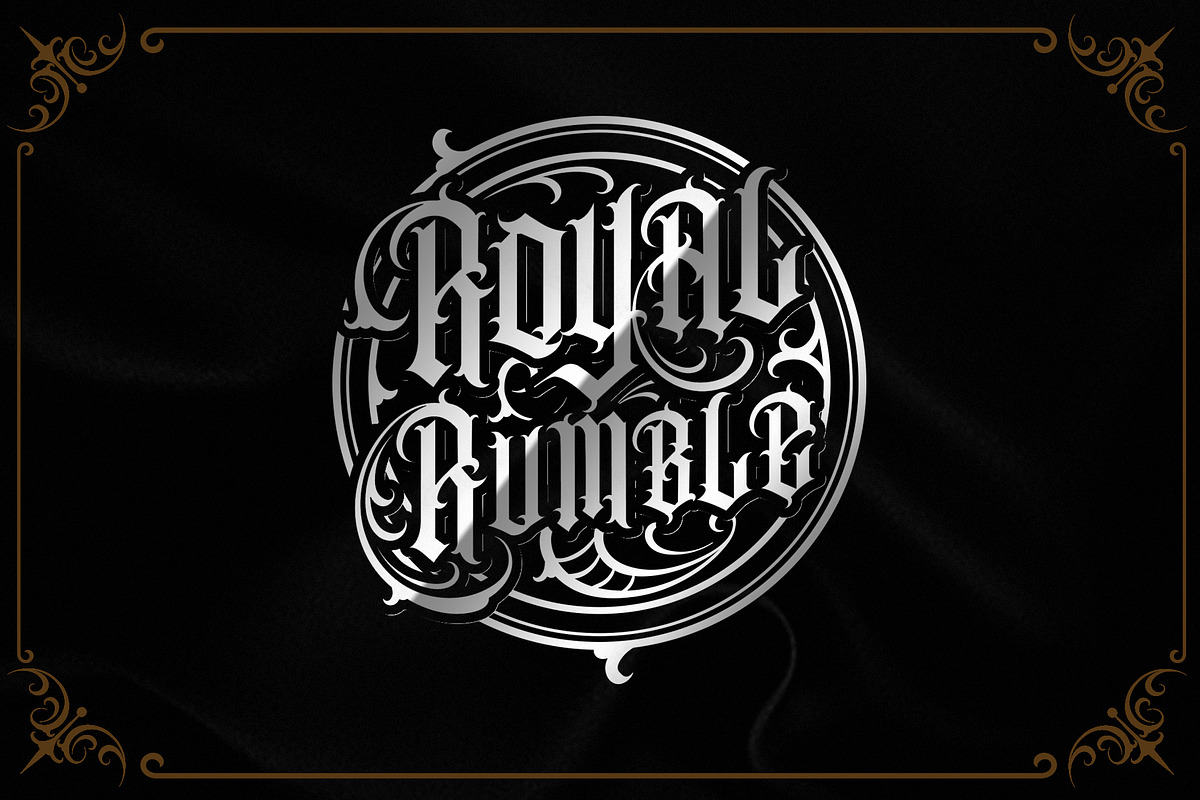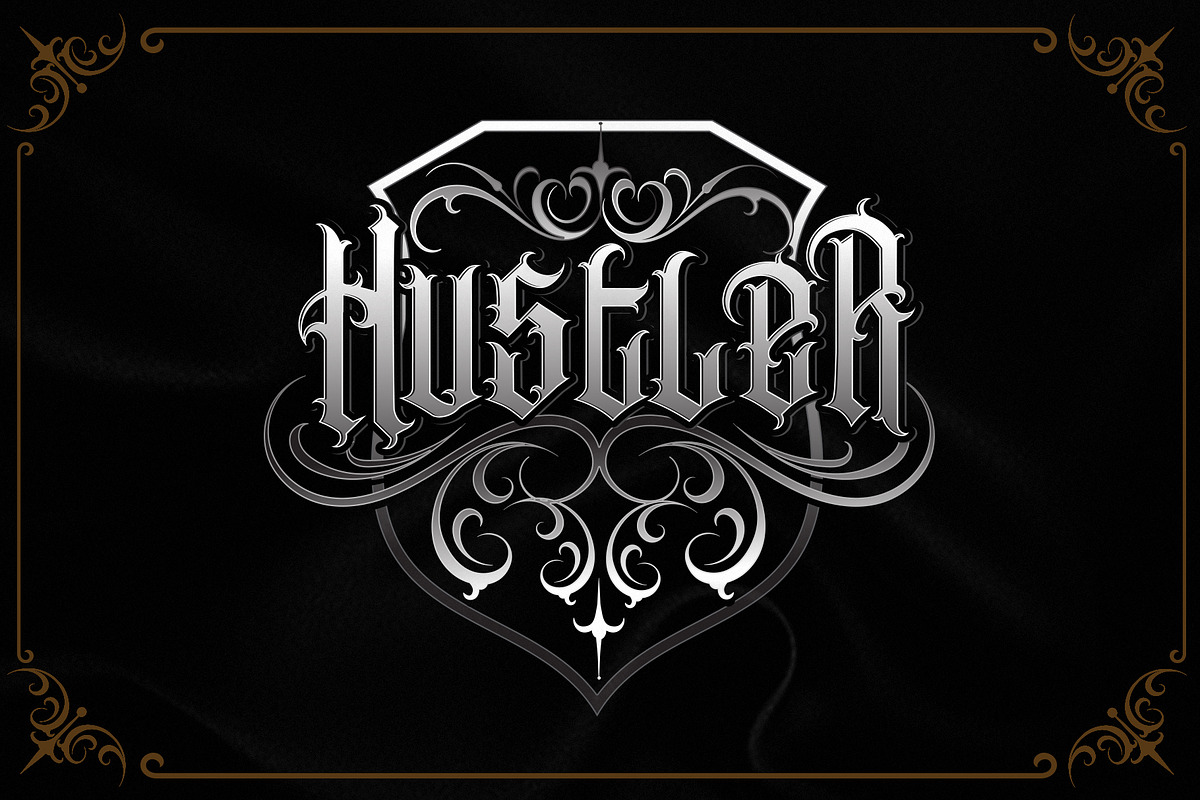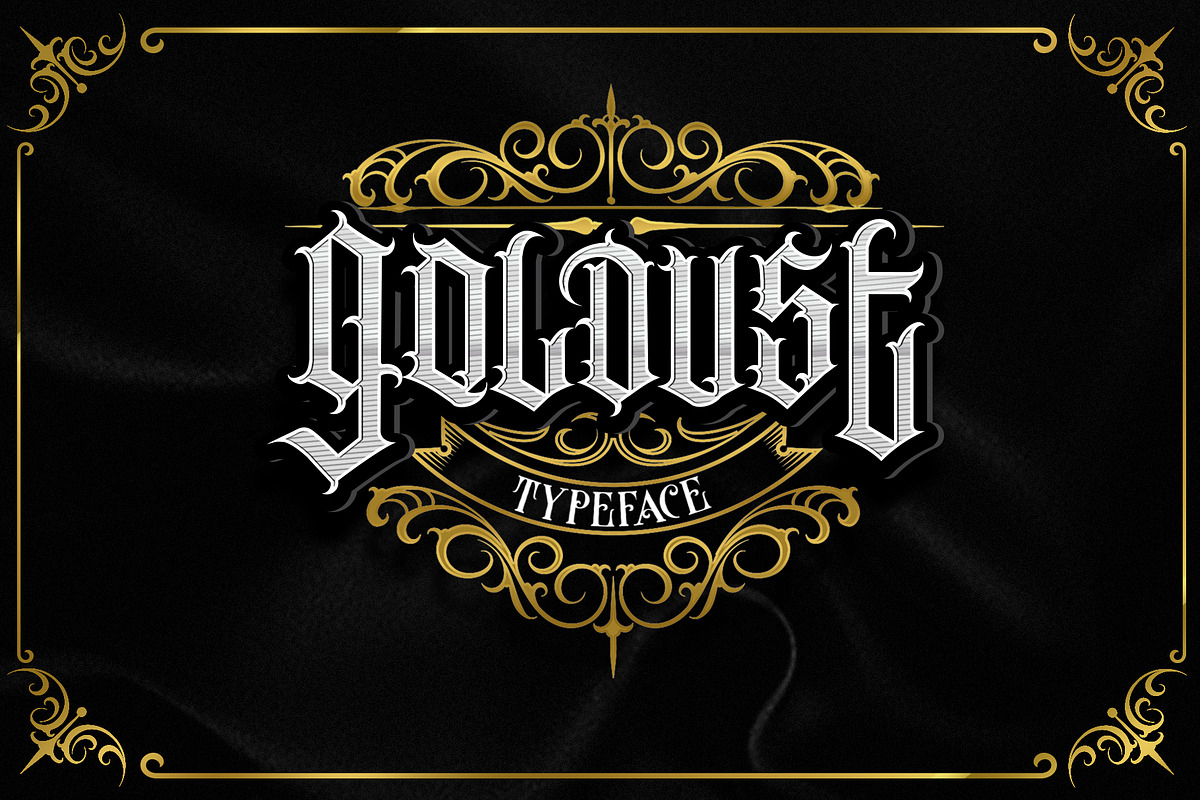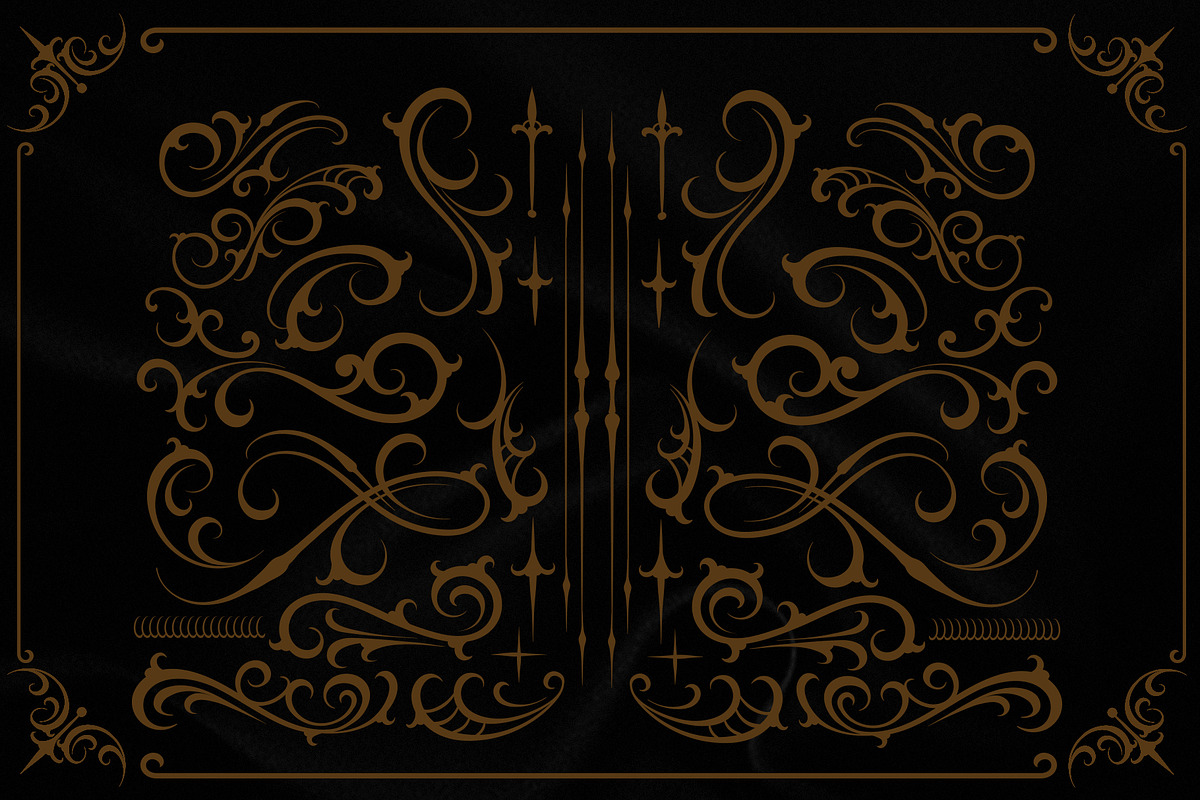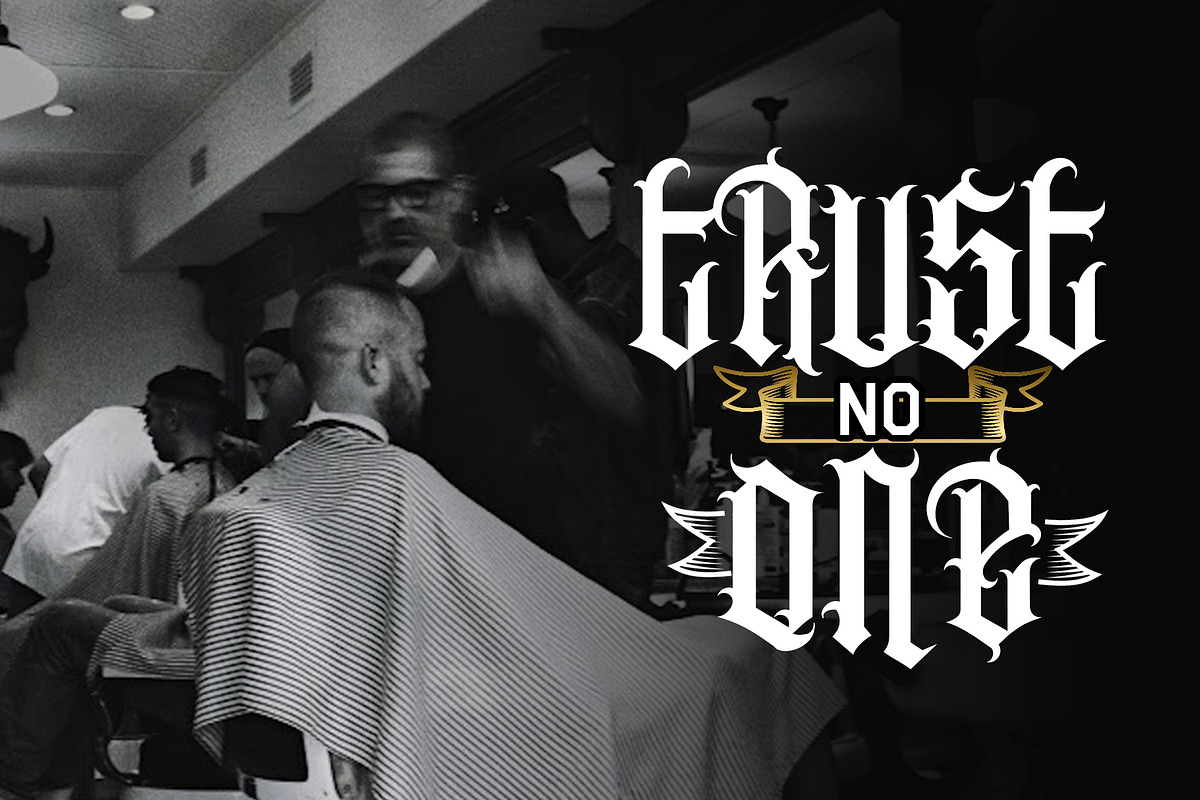
GOLDUST FONT + Decorative Bonus
Dansdesign Proudly present our new product GOLDUST FONT + Decorative Bonus This font is made with references to various letters that I combine and design with my style.
Goldust Font + Decorative Bonus is a premium blackletter display typeface designed by Dansdesign, combining classic gothic elegance with intricate ornamental details. Perfect for logos, wedding invitations, vintage posters, product packaging, badges, apparel labels, and decorative headlines, this font delivers a luxurious and timeless aesthetic.
GOLDUST FONT + Decorative Bonus are great and usefull for product logo, poster title, headline, packaging, badge, wedding card logo, clothing brand logo,Vintage design and much more
Goldust Font + Decorative Bonus – Ornamental Blackletter Typeface for Elegant Vintage Designs
Goldust Font + Decorative Bonus is a premium blackletter display typeface designed by Dansdesign, combining classic gothic elegance with intricate ornamental details. Perfect for logos, wedding invitations, vintage posters, product packaging, badges, apparel labels, and decorative headlines, this font delivers a luxurious and timeless aesthetic.
Why GOLDUST FONT + Decorative Bonus is worth a look
GOLDUST FONT + Decorative Bonus by dansdesign fits naturally into Branding, posters, packaging, typography.